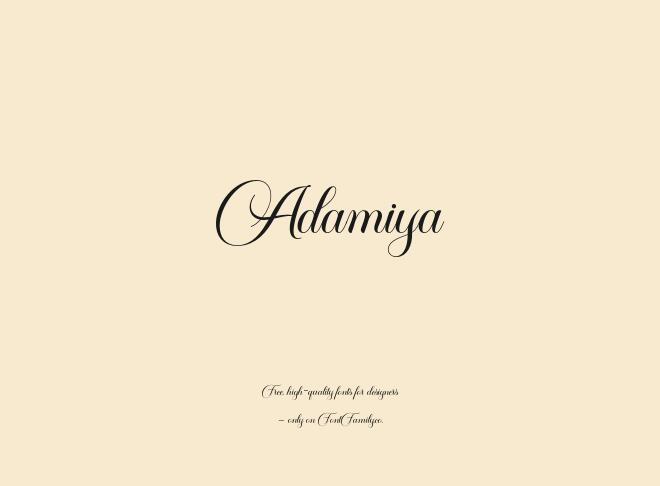
Adamiya Font
Adamiya Font is a unique blend of modern elegance and handwritten style, designed by Artistic Creativity. Its distinct curves and lines offer a refreshing take on script typography, making it a top choice for designers. Ideal for logos, wedding invitations, branding, and social media posts, Adamiya Font brings an artistic touch to any design. Its elegant charm is similar to popular fonts like Amatic SC and Allura, yet it stands out with its original flair. The font is highly readable, which makes it suitable for both display and text usage. With its free license for personal use, Adamiya Font is a valuable addition to any designer's toolkit.